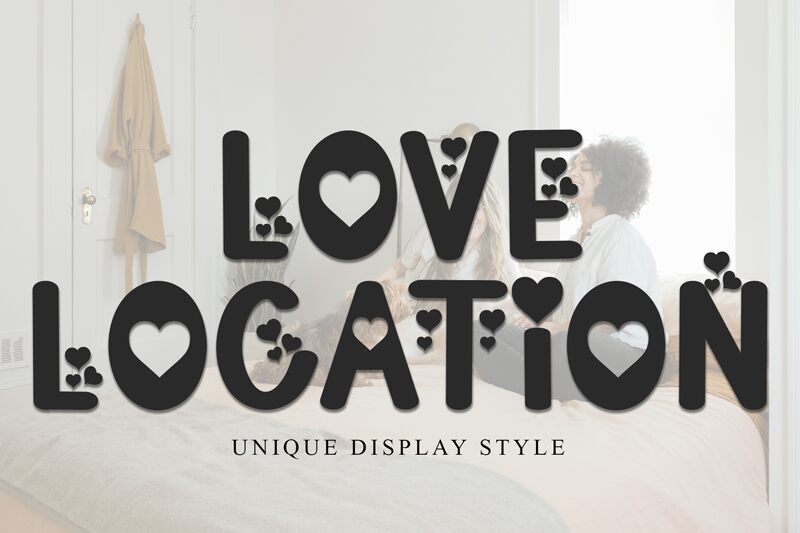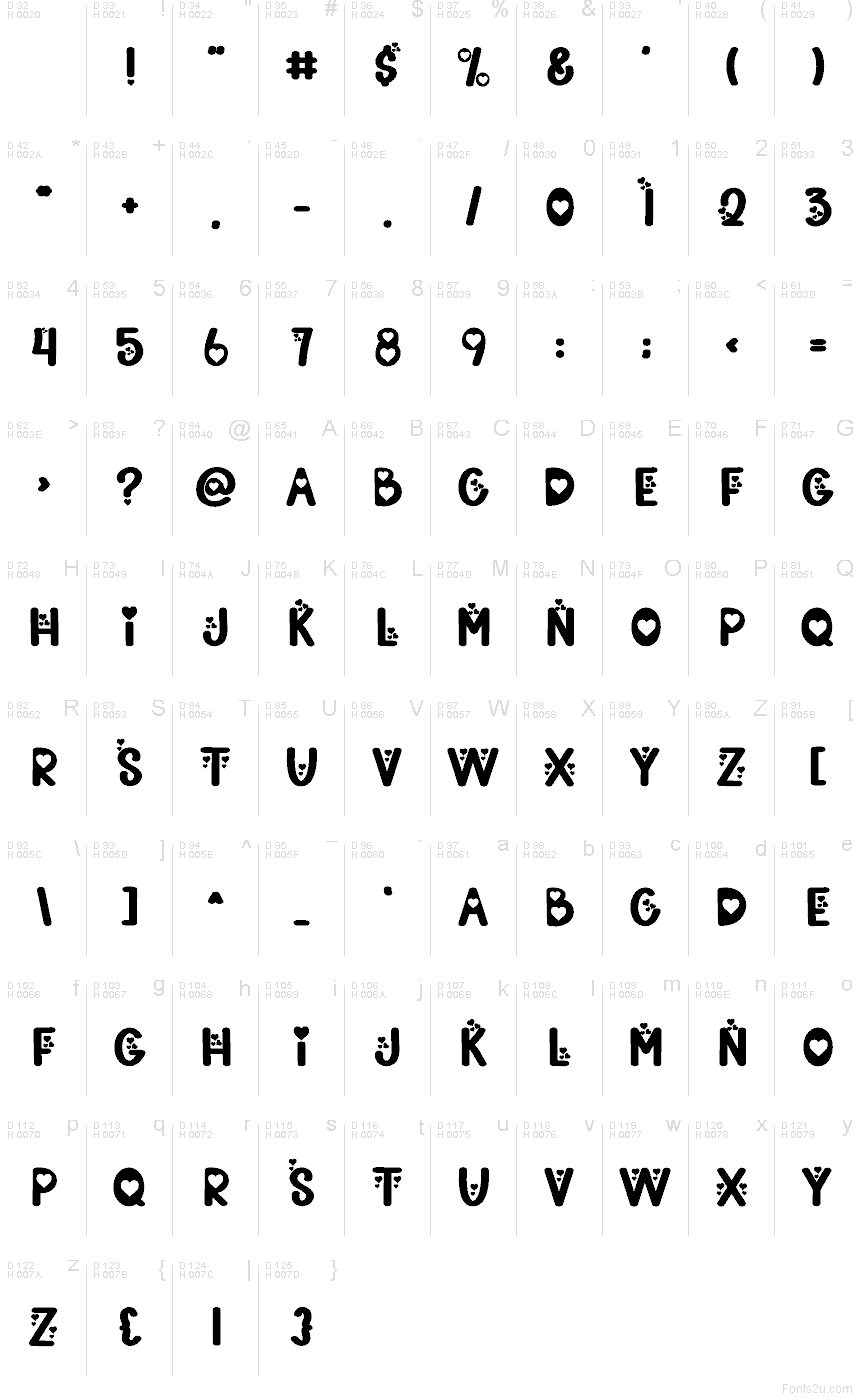
Love Location
Love Location font by Inermedia Studio is a free Valentine holiday decorative font that turns every word into a little love note. Chunky, rounded letters cradle bold heart shapes, while scattered mini-hearts feel like confetti across the line. The solid black forms read clearly even at smaller sizes, but they really pop when you bump them up and let those heart details breathe.
Using Love Location, this free font shines on Valentine cards, party invitations, classroom crafts, cute stickers, social posts, and candy or gift packaging. Its playful, bubbly rhythm instantly signals romance without feeling stiff or formal. For balance, pair this typeface with a clean, simple sans serif for small text, and keep Love Location for big titles, names, and short phrases that need maximum sweetness.